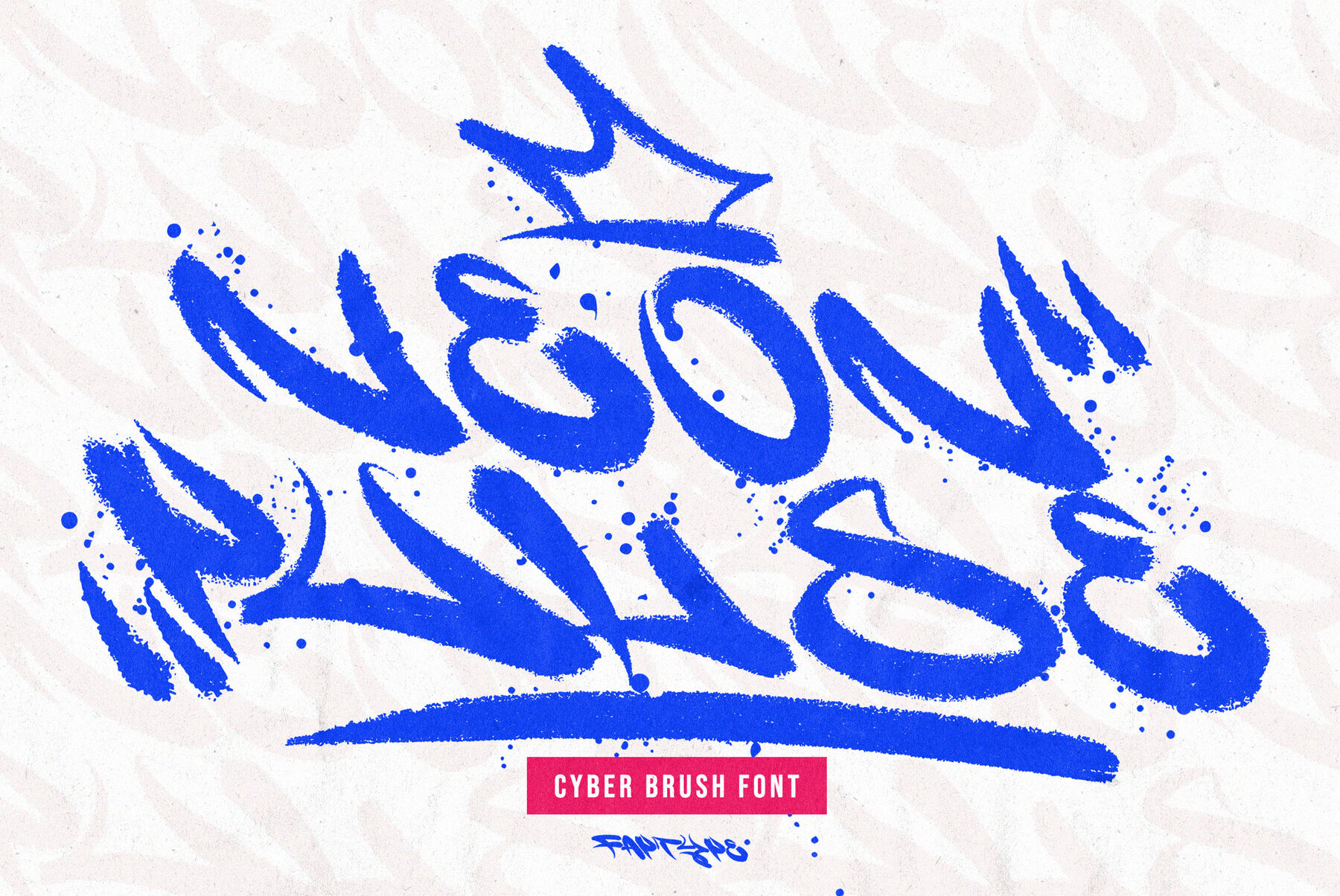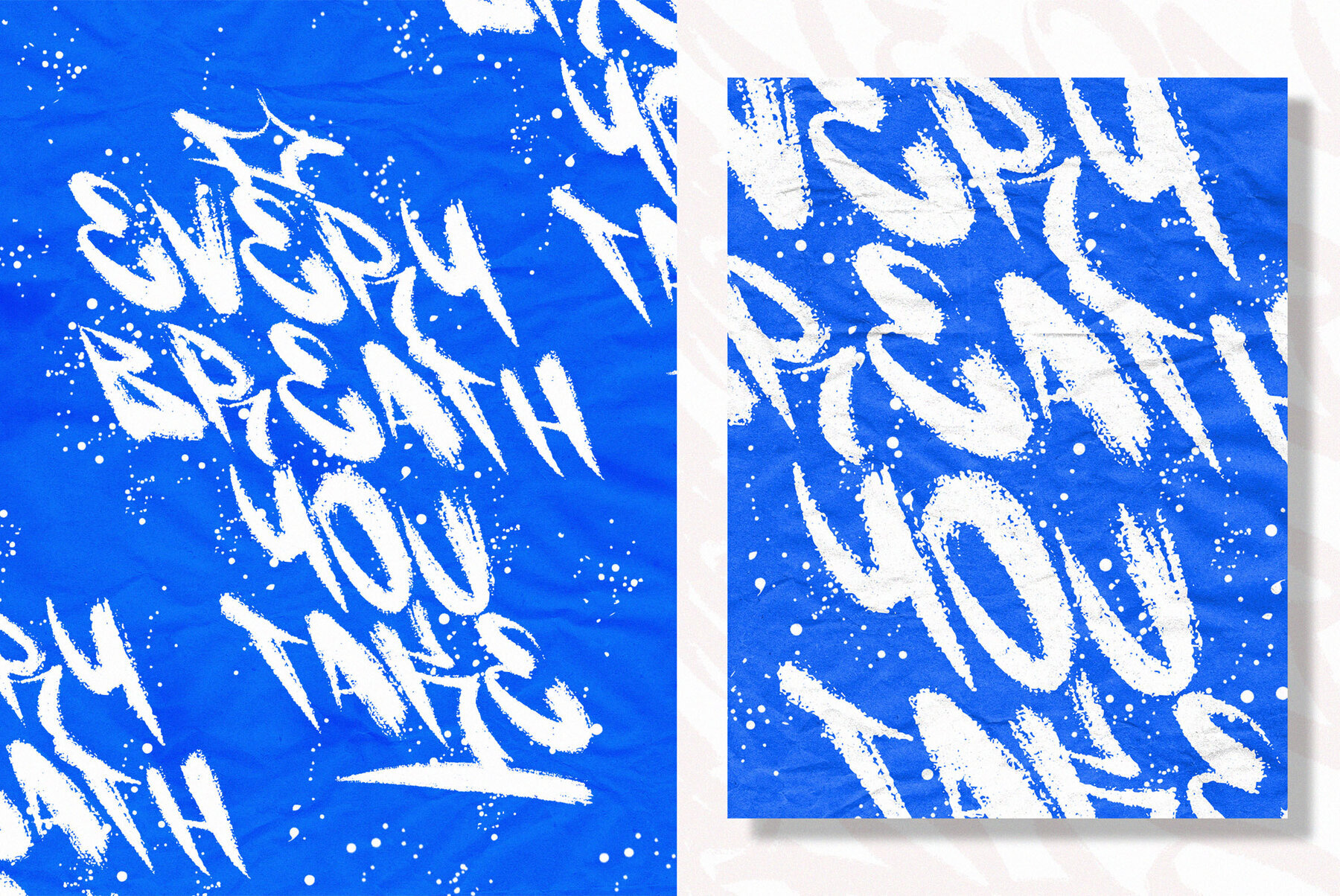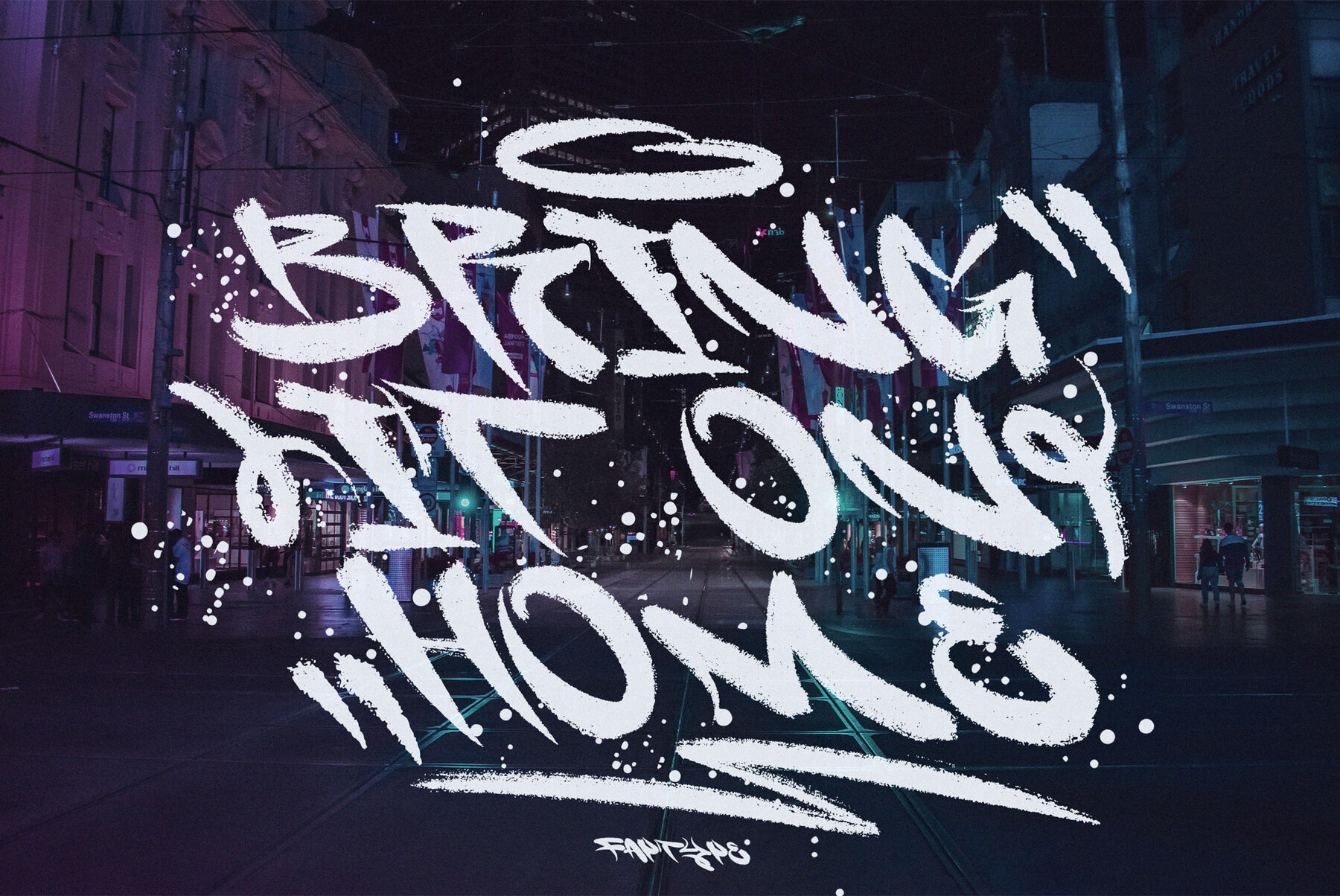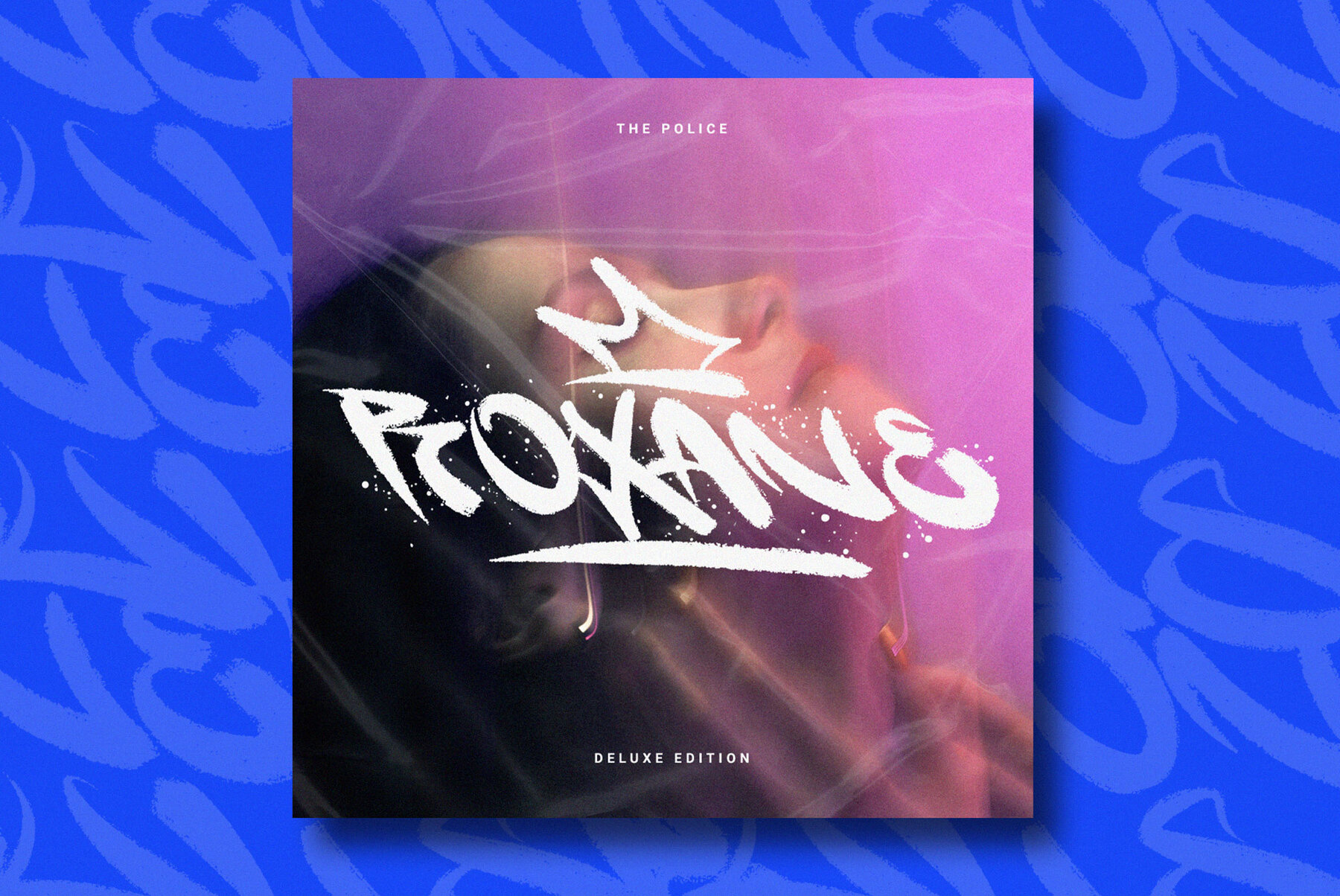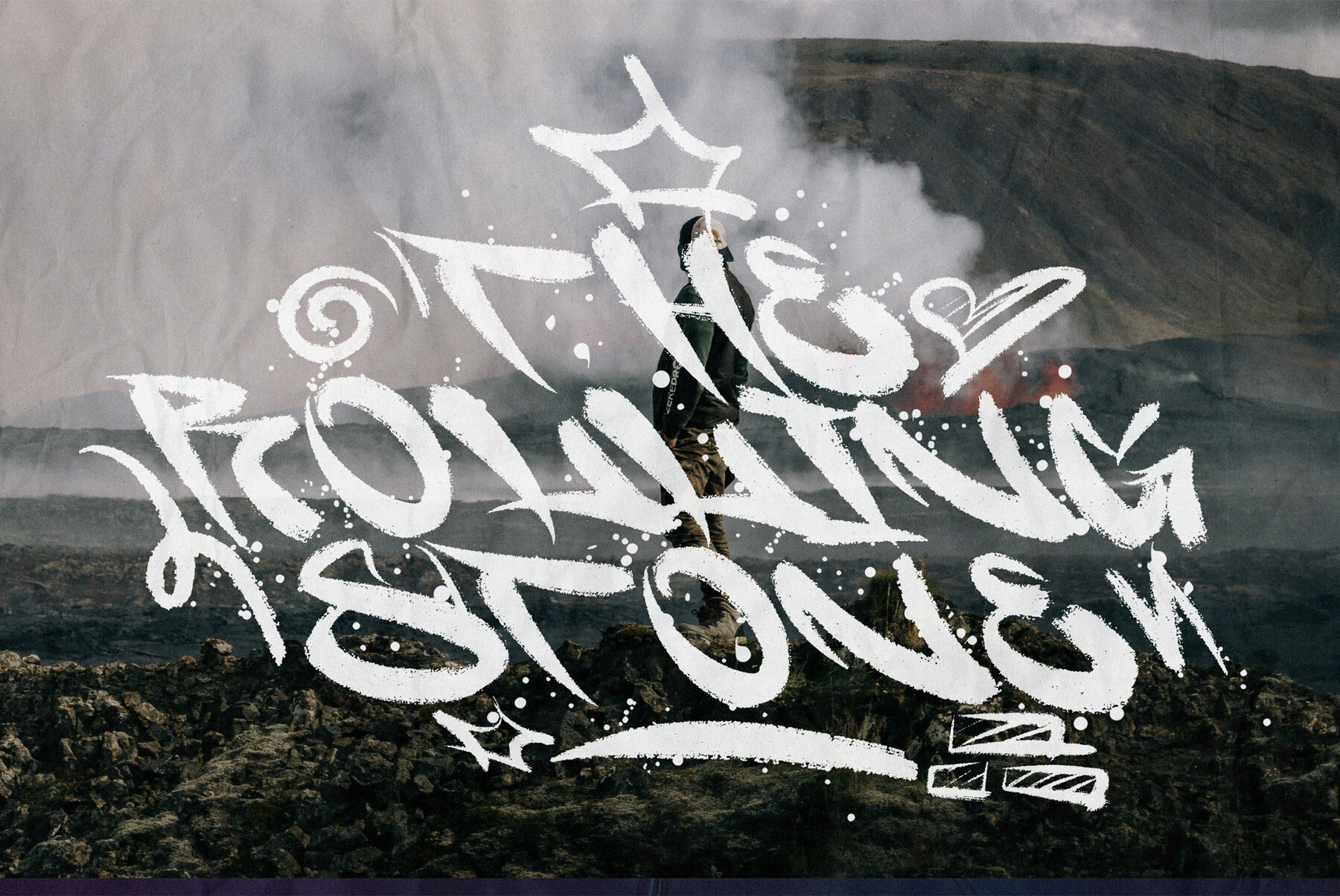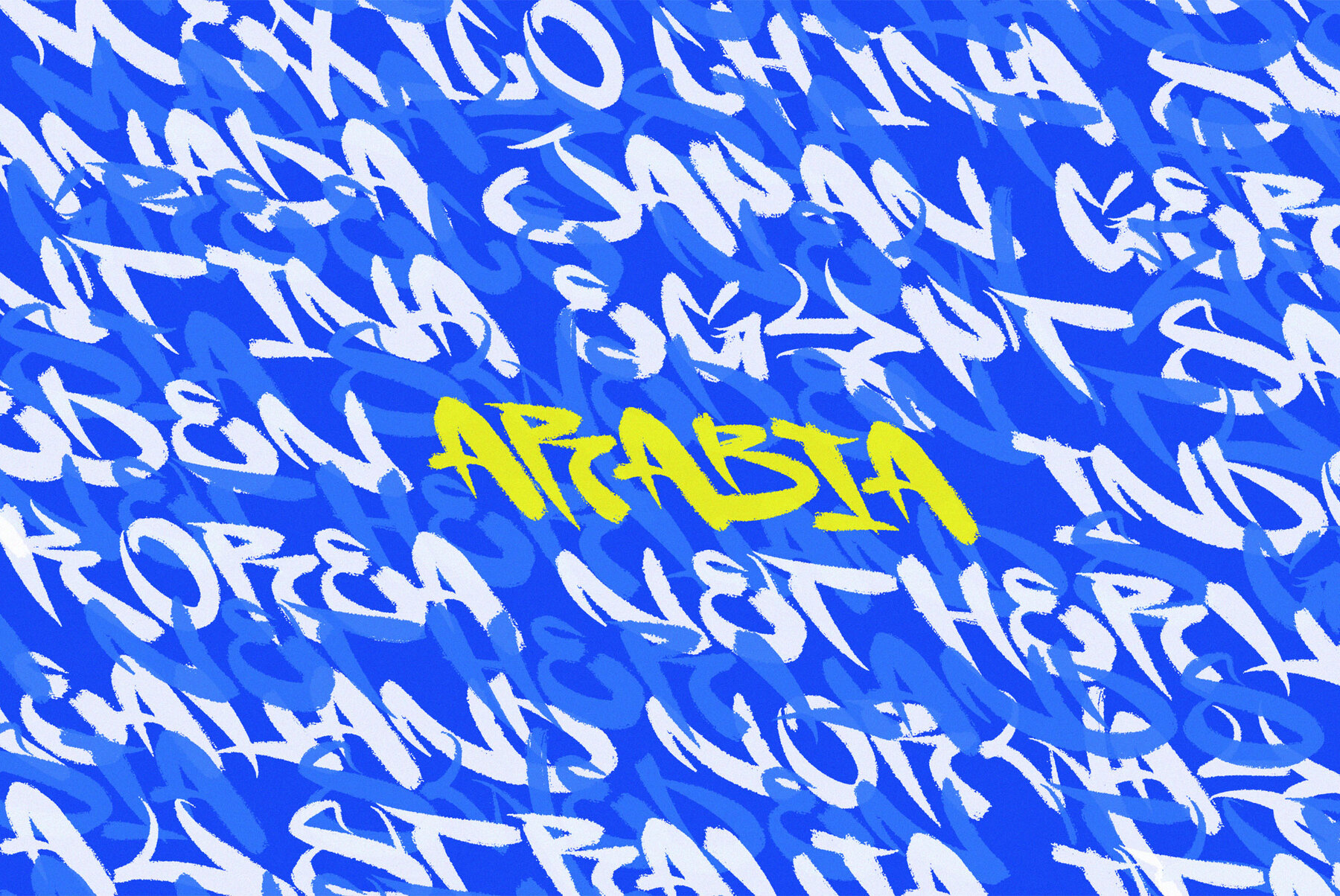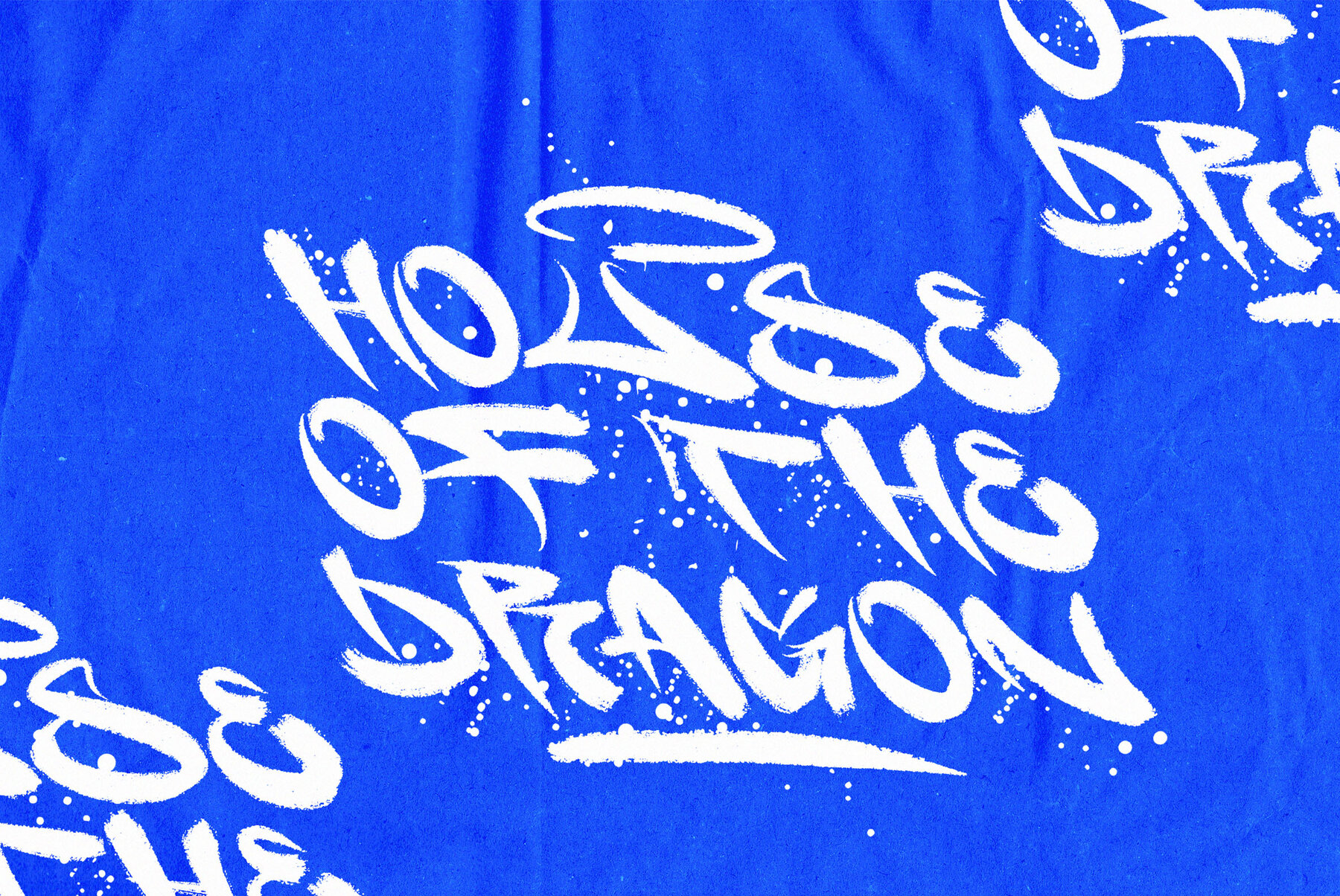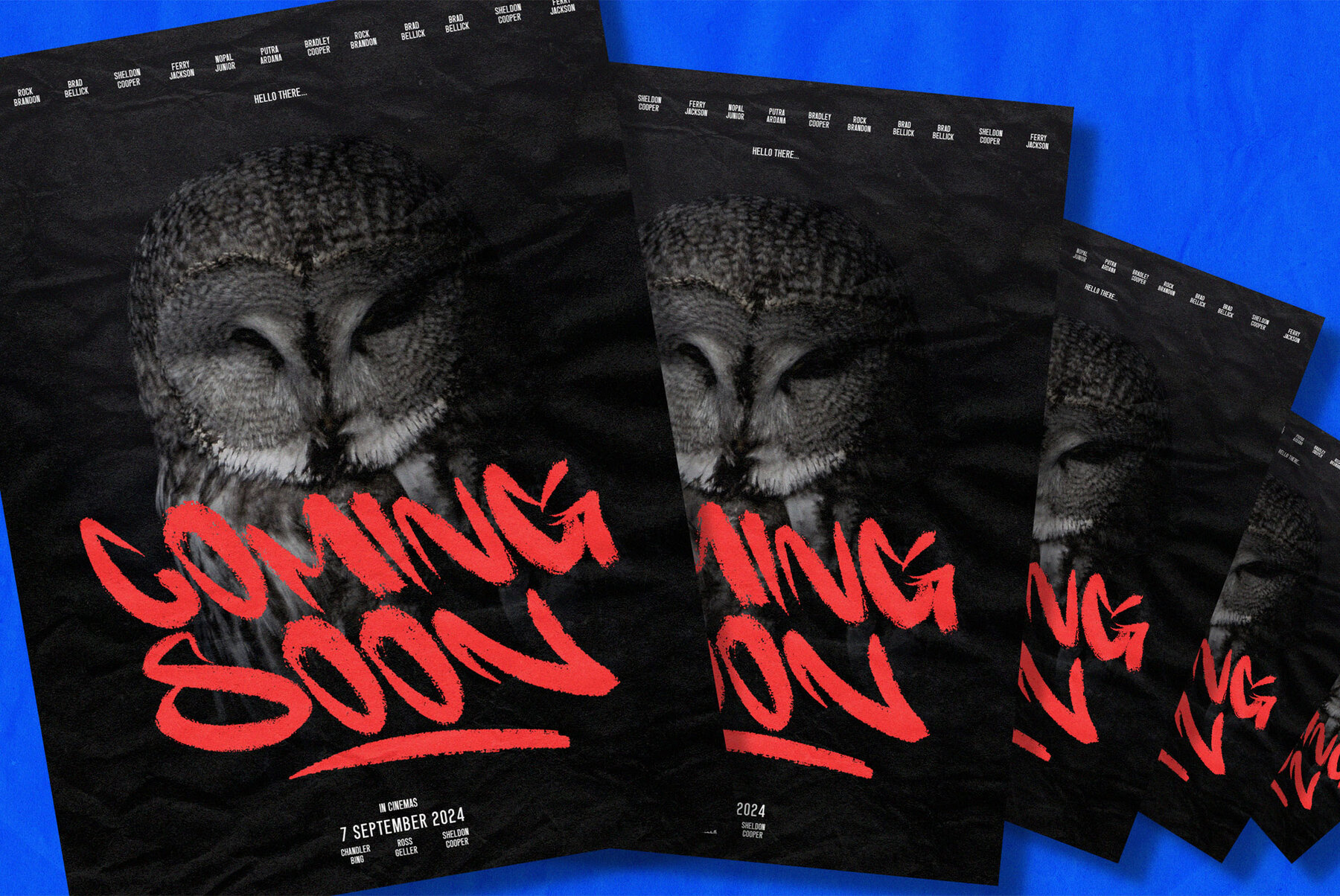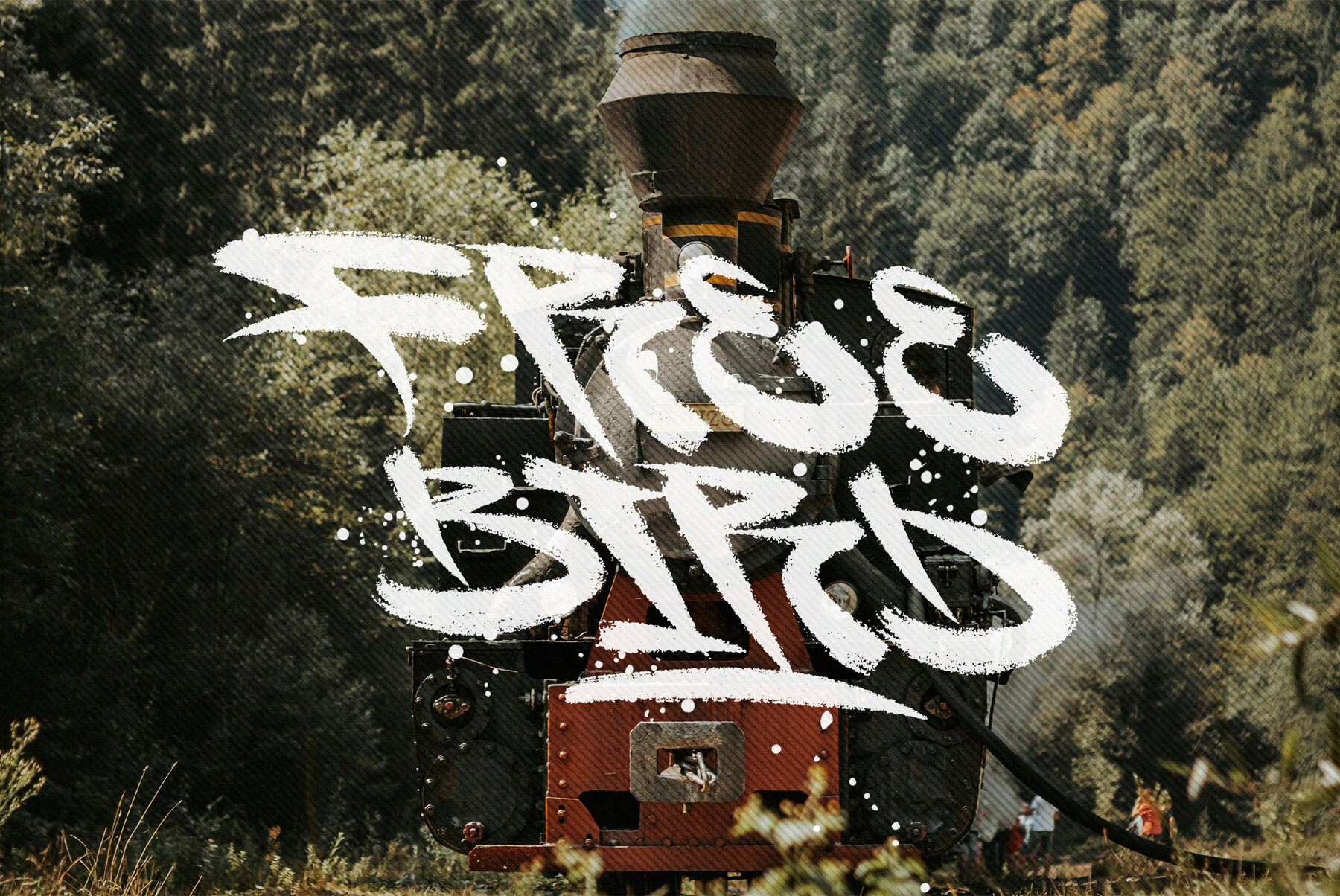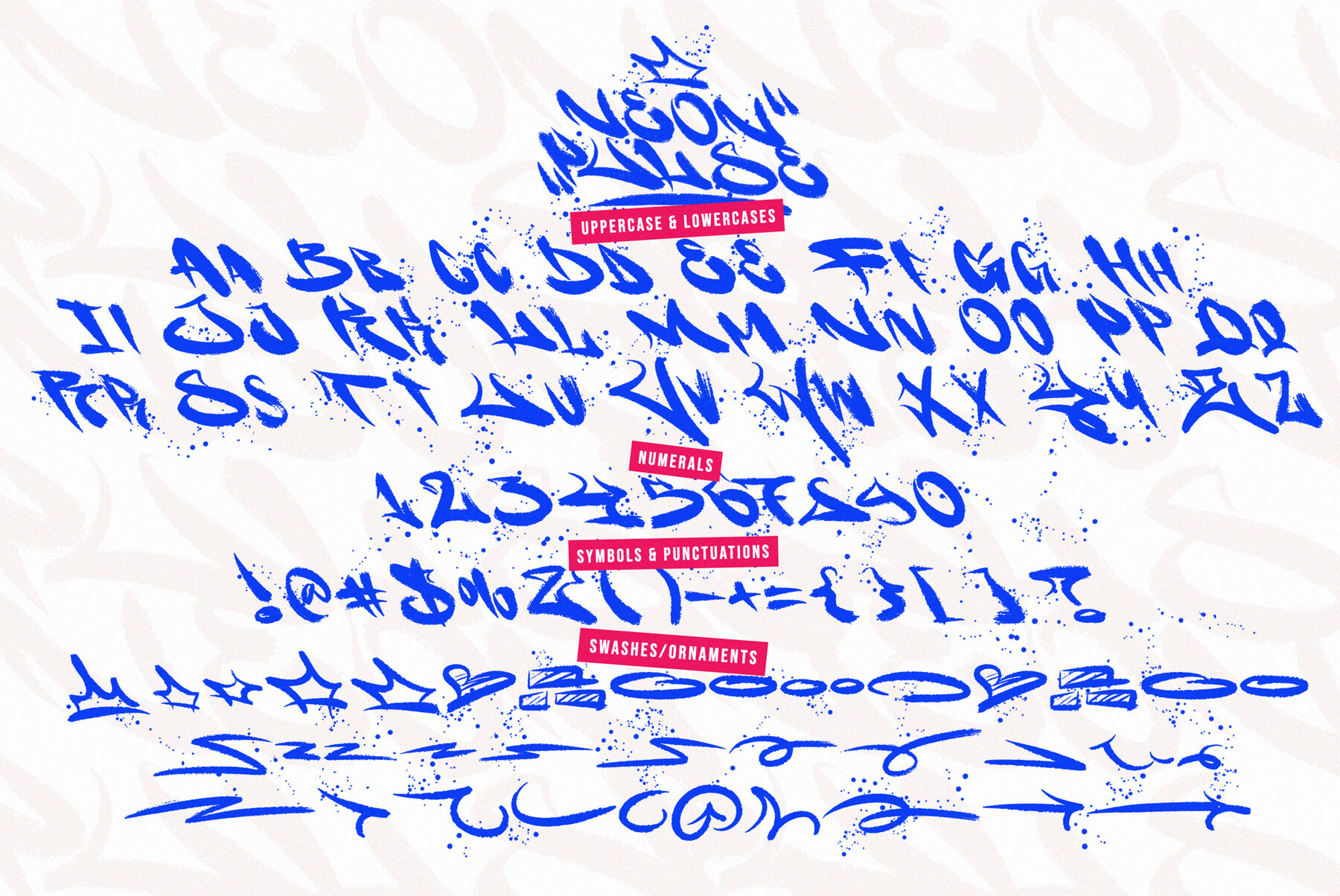
Neon Pulse Font
Neon Pulse Regular
Neon Pulse is a dynamic cyber brush font that infuses a powerful, electrifying energy into any creative project. With bold strokes and a style inspired by neon lights, it artfully blends the urban edge of graffiti with futuristic elements. Perfect for designers looking to create compelling logos, striking posters, and vibrant social media graphics, Neon Pulse embodies an authentic hand-drawn aesthetic. This typeface radiates the vibrant glow of city lights, bringing modern technology to life with a rebellious yet polished charm. Ideal for brands that wish to make a confident and original statement.
This captivating font offers a complete set of uppercase and lowercase characters, along with numbers, punctuation, and multilingual support. With over 345 glyphs and 137 graffiti swashes, it provides vast creative possibilities. Designed with OpenType features and PUA encoded characters, Neon Pulse offers versatility and ease of use for any design project. Let your projects shimmer with the unique visual impact of Neon Pulse, capturing the spirit of modern street art and the illumination of the future.